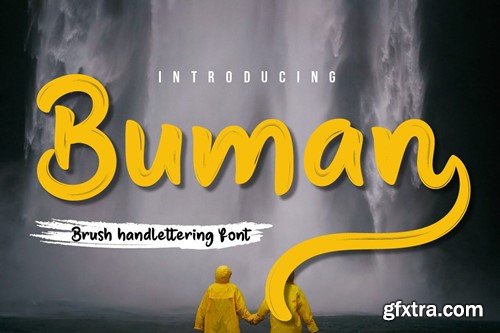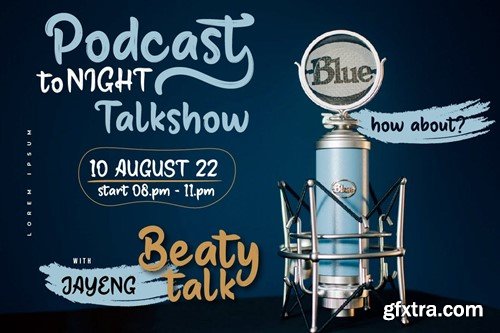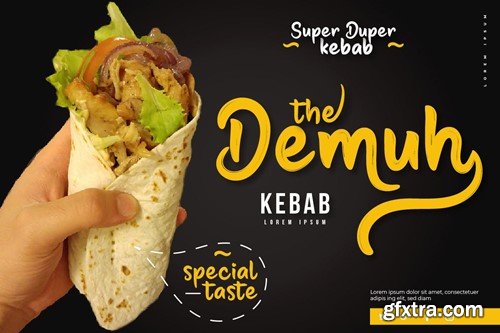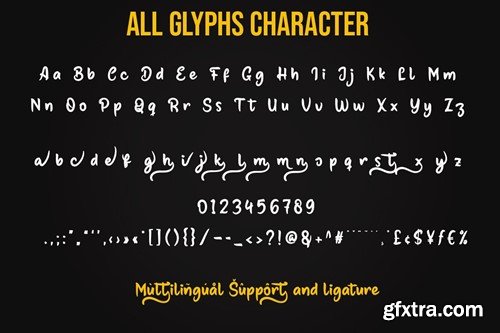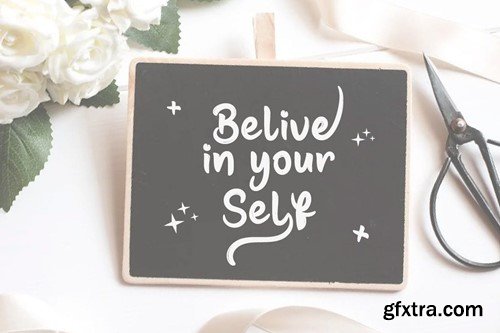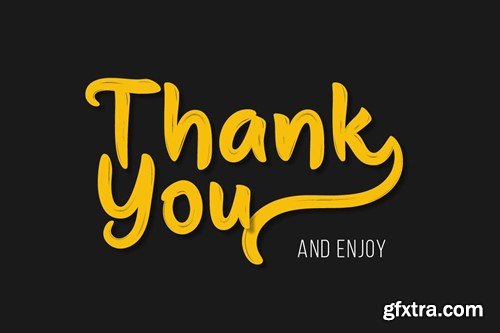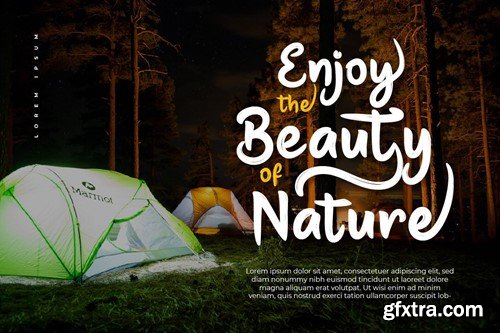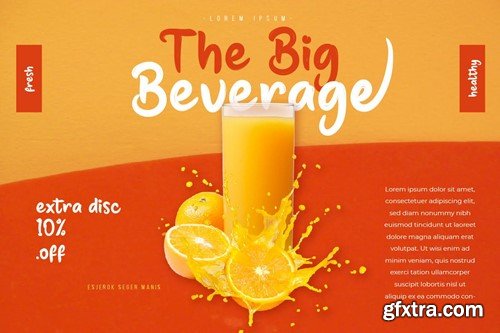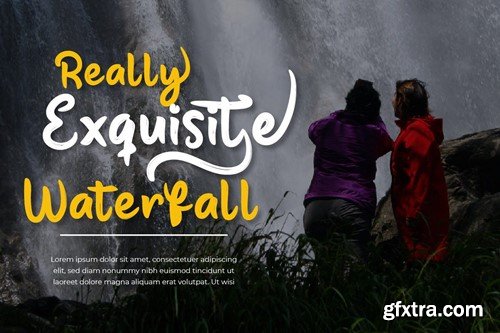
Human - Brush Handwritten Font NV6VK7M
Buman - Brush Handwritten Font NV6VK7M
Buman - Brush Handwritten Font
Buman is an energetic and creative handwritten font. With strong strokes and high-speed lines, this font brings a dynamic and spirited impression to every design project. It's perfect for titles, posters, or branding seeking a bold and unique look.